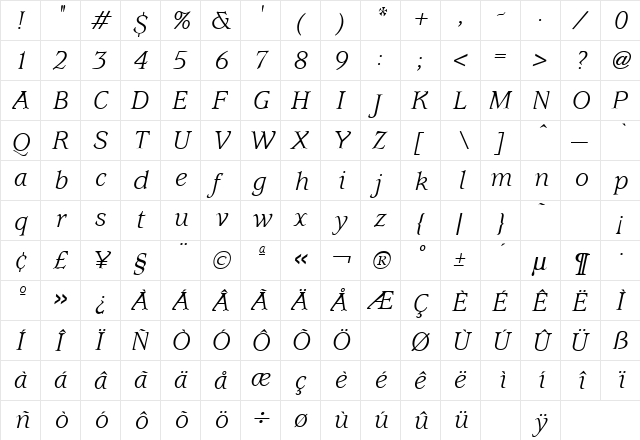
Usherwood Italic
Design Context for Usherwood Typeface
Usherwood echoes the hand-painted signage and woodblock typography of the American frontier, with a warm, rugged personality. The dynamic lean of this cut emphasises speed and emphasis in any layout.
Perfect for barbecue restaurants, country music branding, vintage poster design, and rustic packaging.
Font Pairing: Combine Usherwood with a simple slab or neutral sans — period-accurate companions reinforce the vintage feel without competing for attention.
Pro Tip: Pair Usherwood with aged textures or distressed backgrounds to amplify its vintage personality.